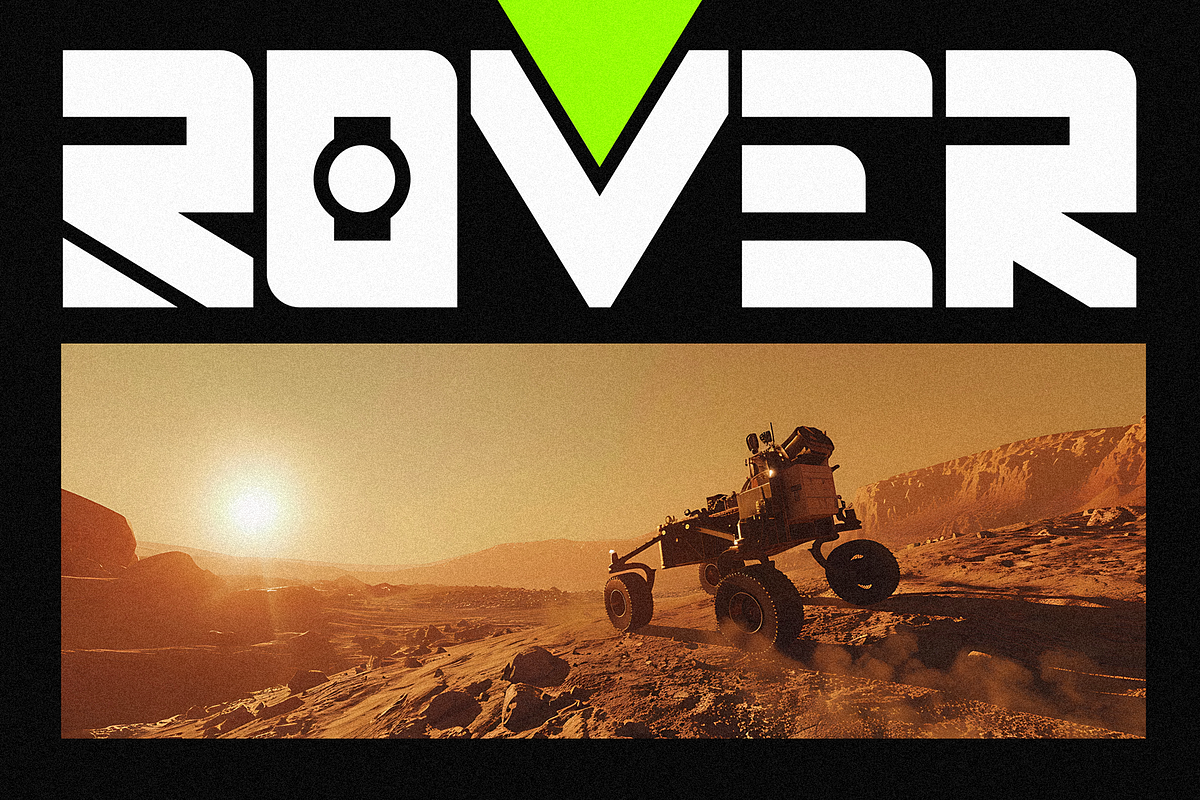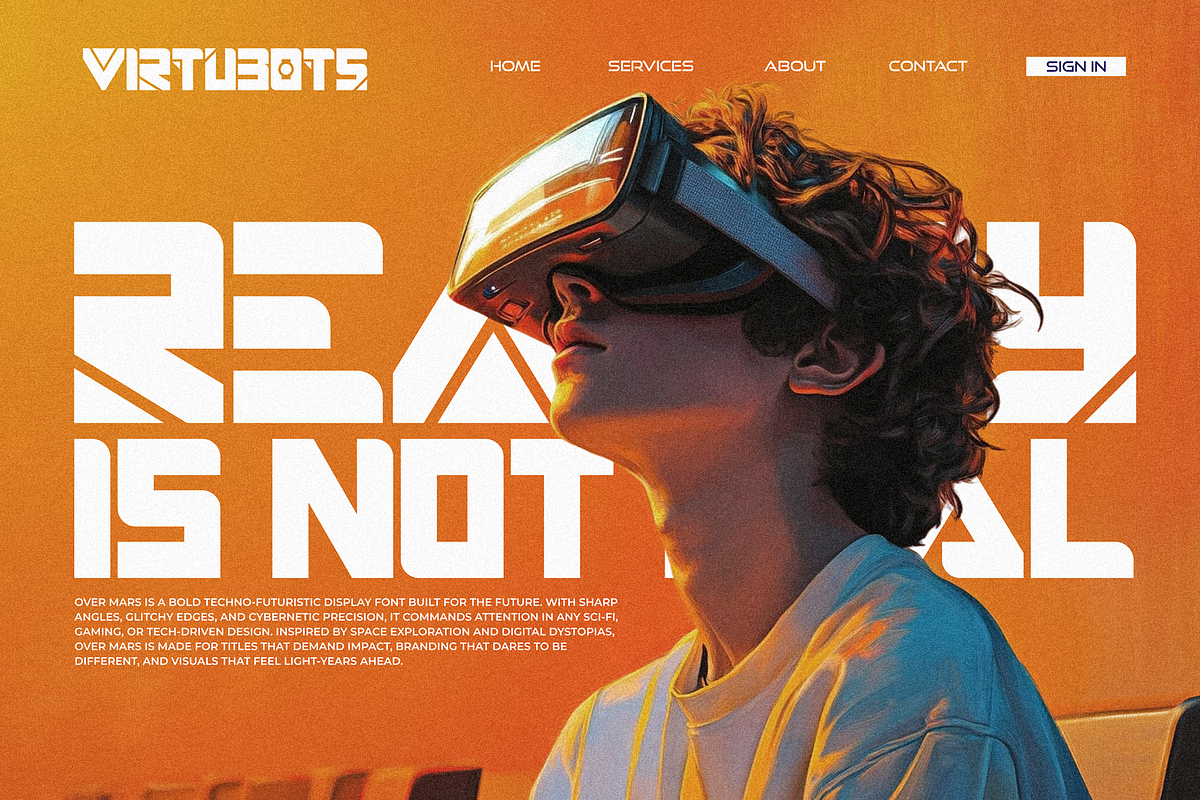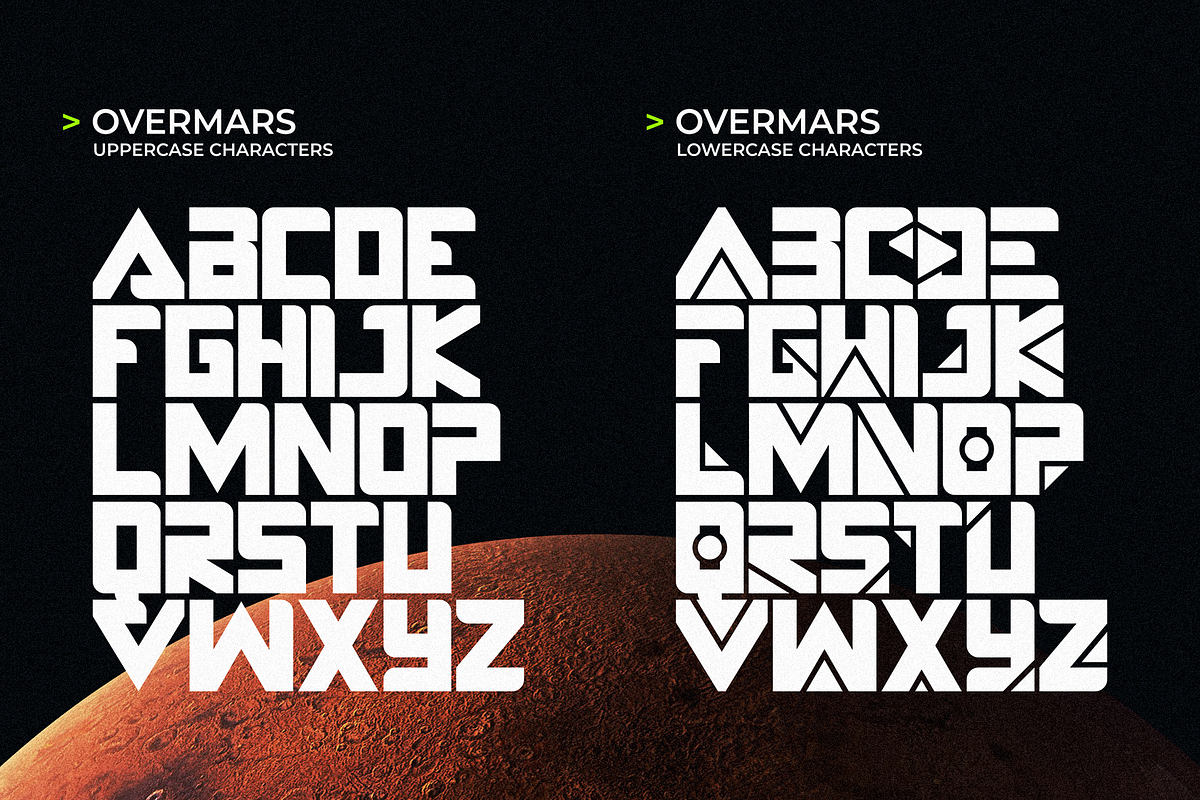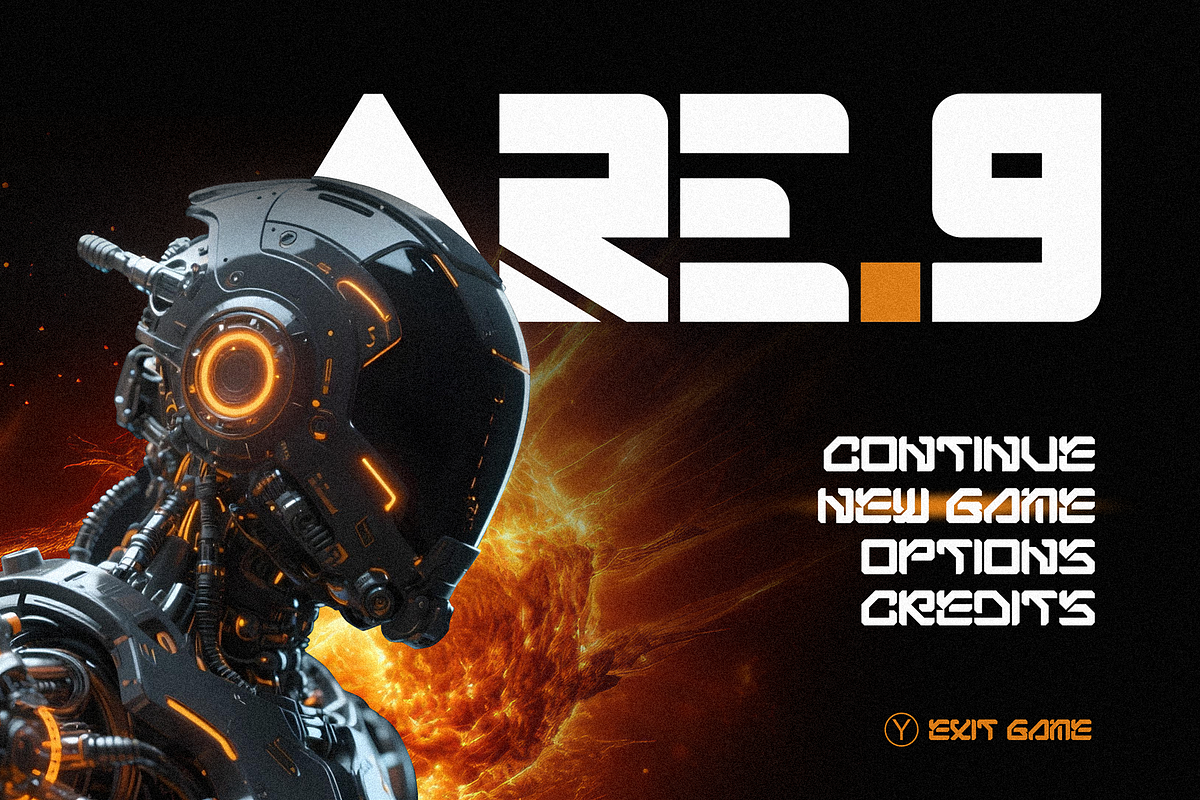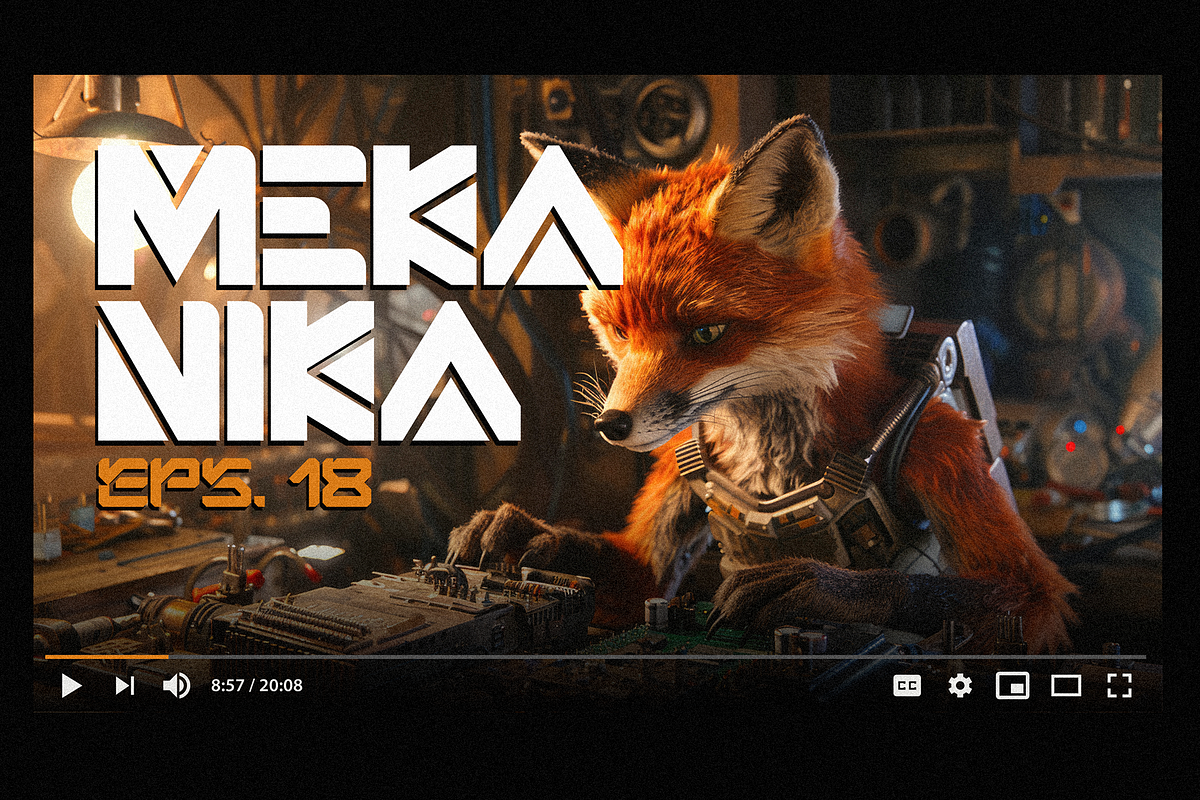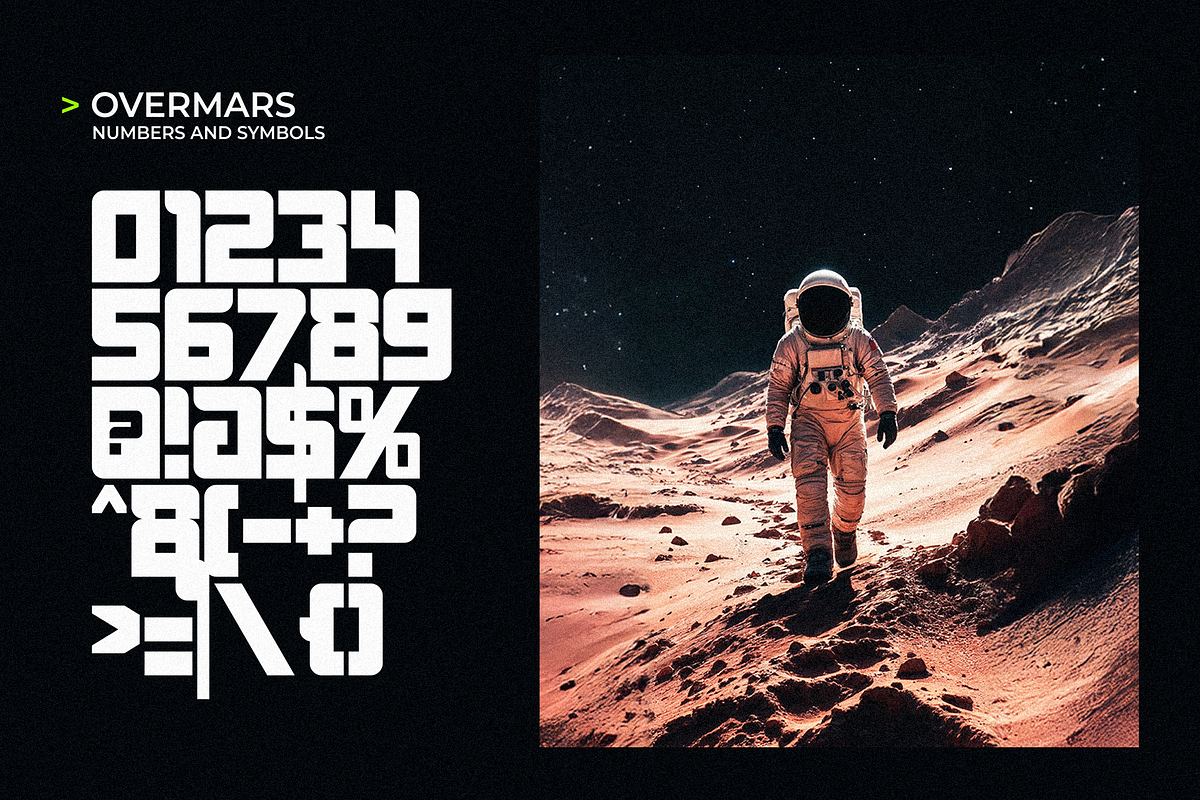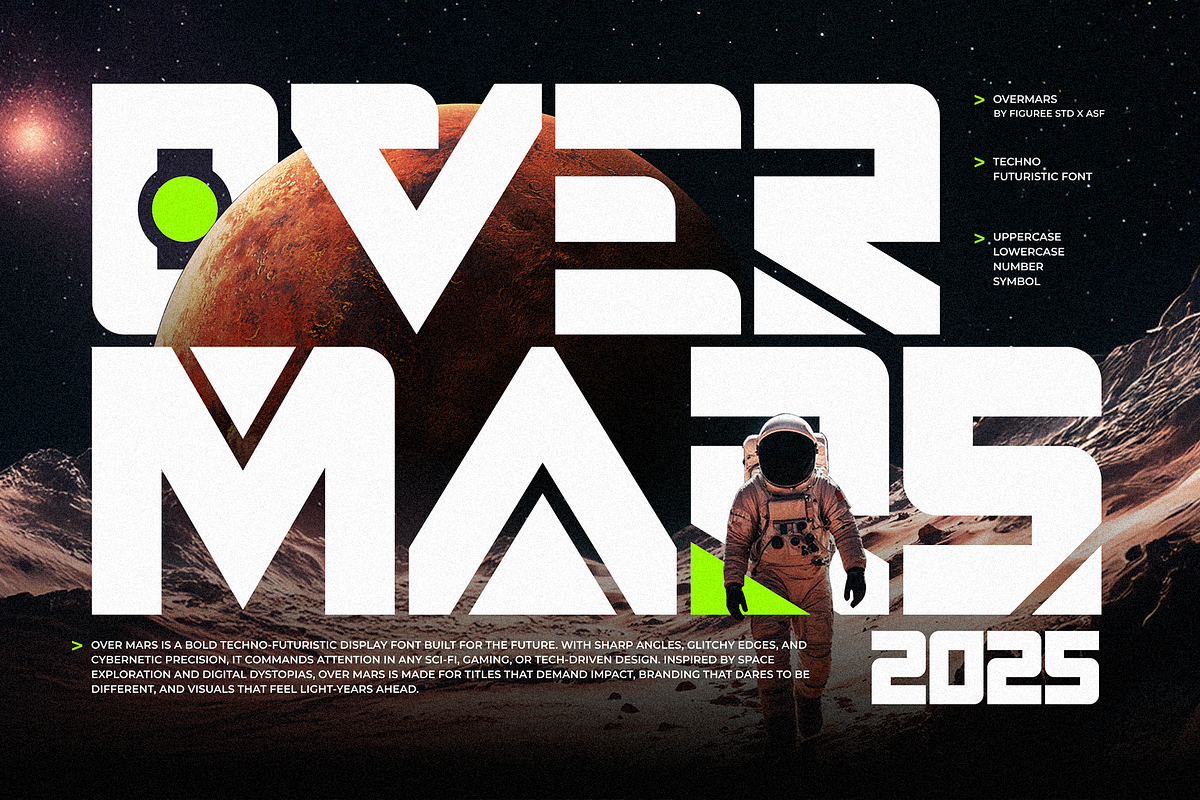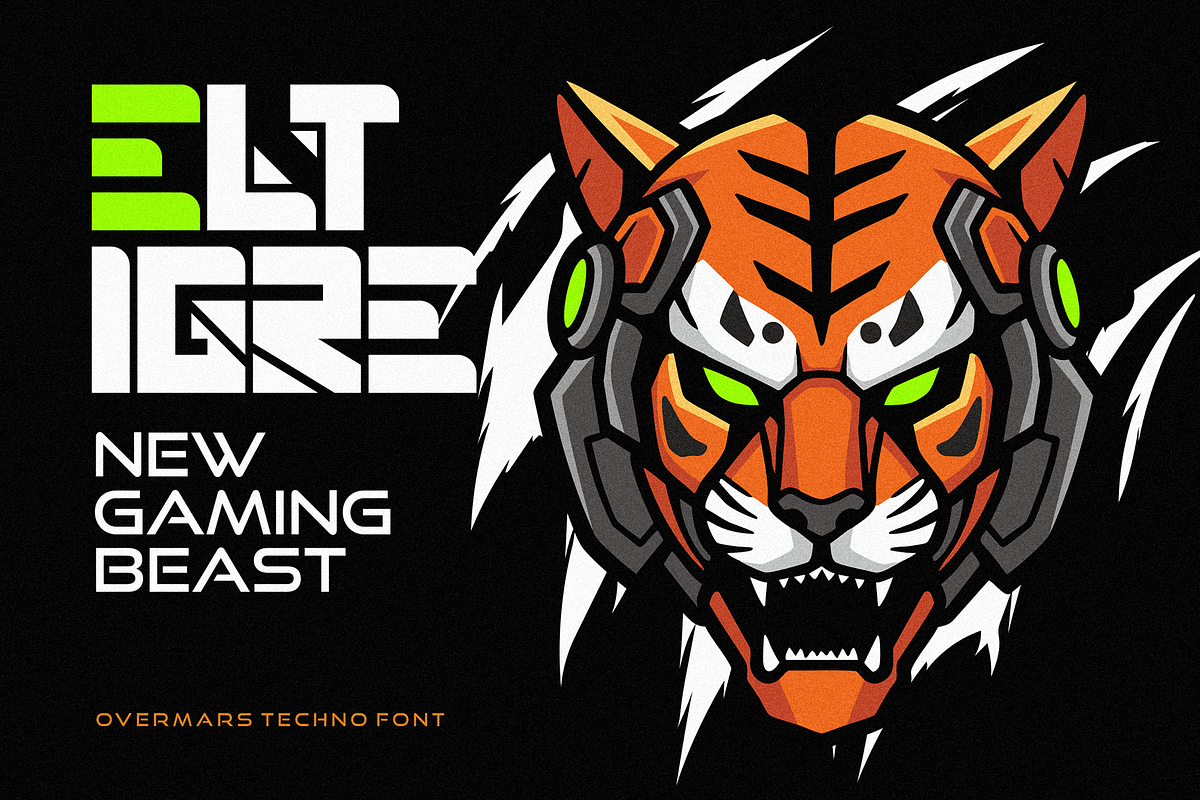
Overmars – Futuristic Techno Font
Overmars is a bold, futuristic techno font built for digital-first design. With sharp lines and sleek curves, it brings a modern, cutting-edge feel to logos, UI/UX, gaming, and startup branding. Perfect for sci-fi titles, posters, and any project that needs a strong digital impact.
- Uppercase & Lowercase Letters
- Futuristic techno style
- Clean lines, sharp edges, sleek curves
- Great for branding, posters, games, web & app design
Why Designers Love It: Overmars combines clarity with boldness, making it perfect for large headlines, dashboards, VR/AR projects, and high-resolution displays. It’s versatile—powerful enough for tech branding yet stylish for cyberpunk or sci-fi visuals.
Best Use Cases: Logos • Tech Startups • Game Titles • Digital Interfaces • Sci-Fi Posters • Crypto/NFT Branding
Take your design into the future with Overmars—your go-to techno display font for bold digital storytelling.